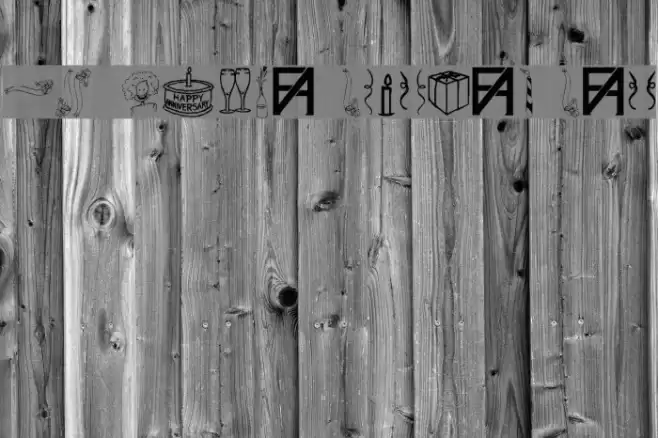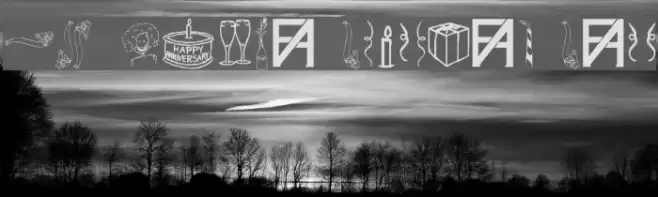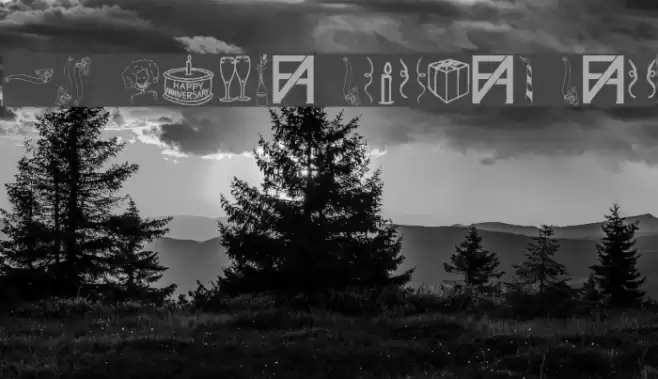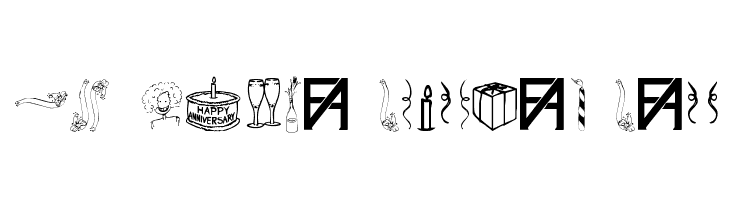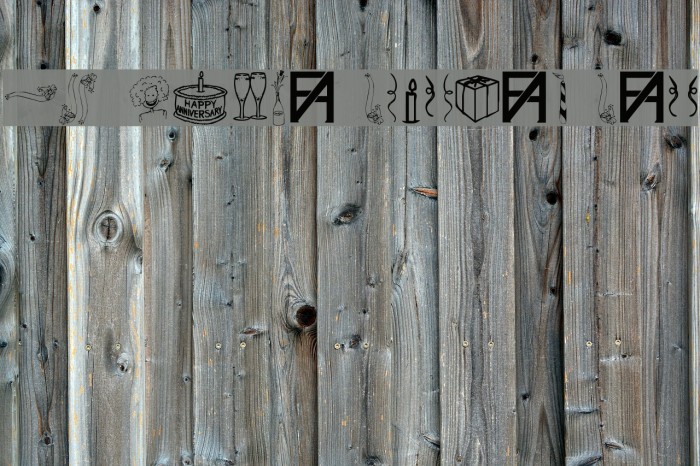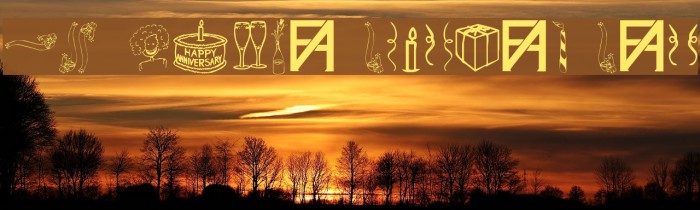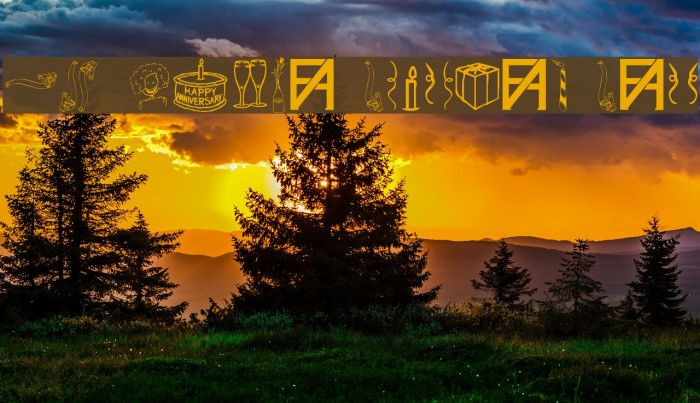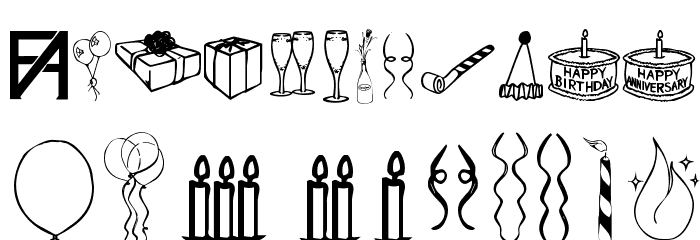
FAD Omega Birthday Bats Font
FAD Omega Birthday Bats Description
This collection features a playful and festive array of birthday-themed illustrations. The designs include whimsical characters, celebratory elements like balloons, cakes, and gifts, as well as decorative borders and icons. Each element is crafted with a light-hearted, cartoonish style, perfect for adding a touch of fun to any project. The illustrations are bold and clear, making them suitable for both digital and print media. The set is versatile, offering a variety of images that can be mixed and matched to create unique compositions.
A playful set of birthday-themed illustrations with a whimsical, cartoonish style from Uncategorized fonts.
- Proposed Projects: Ideal for birthday invitations, greeting cards, party decorations, and festive social media graphics.
- Overall Style: Playful, Festive
- Use Case: Decorative elements for invitations and cards.